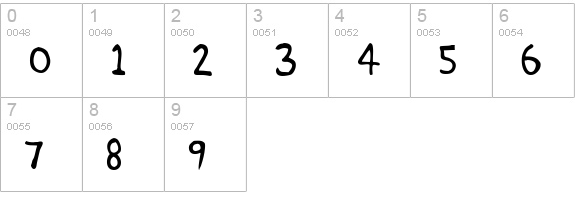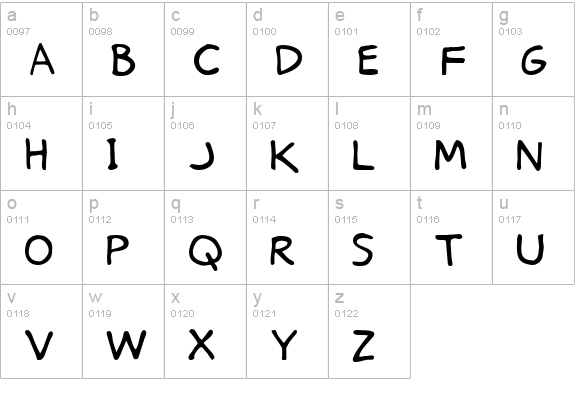
Stinky Kitty Font Details
Introducing the whimsically charming Stinky Kitty font! This playful and quirky typeface is perfect for adding a touch of fun and personality to your designs. With its unique hand-drawn style and adorable cat-themed elements, Stinky Kitty is sure to capture hearts and attention. What makes Stinky Kitty even more delightful is that it is available for free download at FontsMarket.com. Yes, you read that right - this delightful font is freely available for you to use in your creative projects. So go ahead and give your designs a touch of feline charm with Stinky Kitty font today!